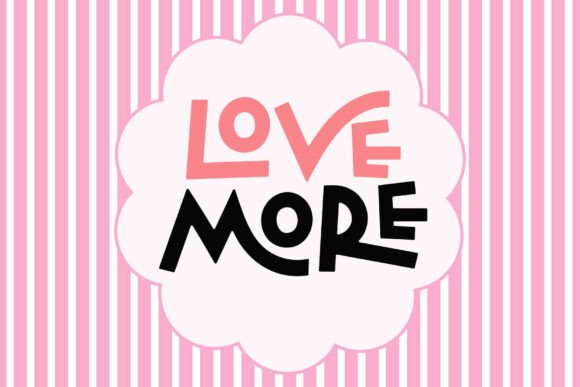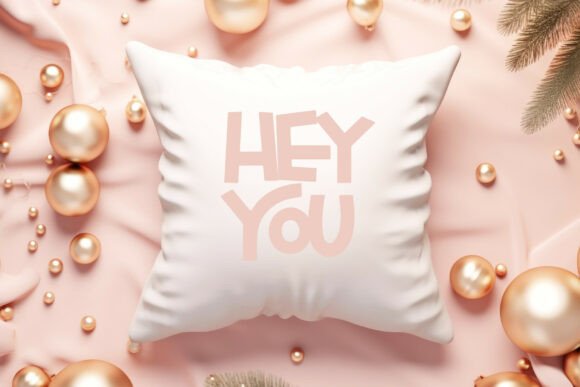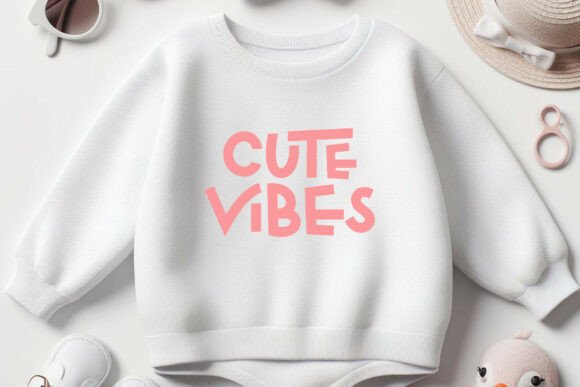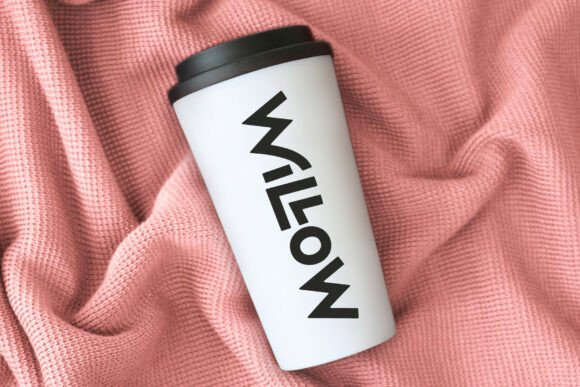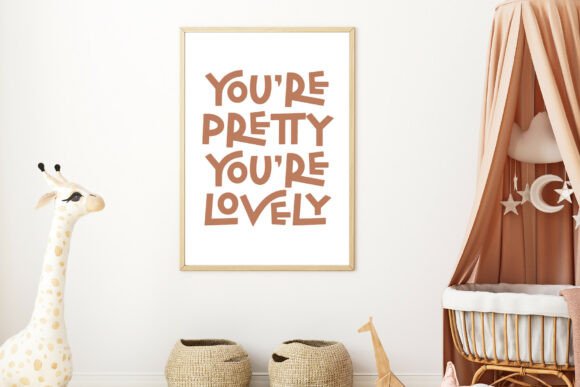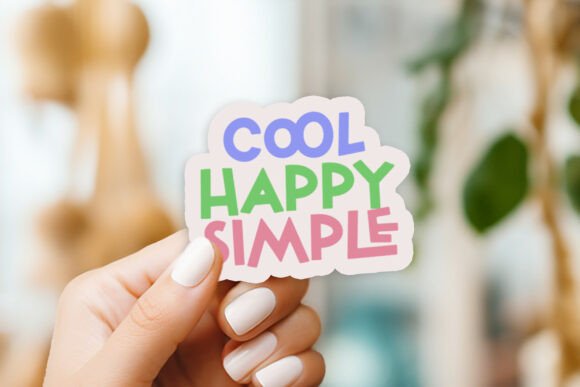
The Ultimate Emotion Flower Font Review: A Playful and Cute Addition to Your Design Toolbox
Have you ever been in the middle of a design project, and suddenly, you just can’t seem to find the right font? I recall a particularly frustrating experience while working on a t-shirt design for a client who wanted something fun, playful, and eye-catching. After scouring through countless font libraries, I stumbled upon the Emotion Flower font, and it instantly brought my design to life! In this article, we’ll dive into the world of Emotion Flower, exploring its features, uses, and everything in between.
First Impressions: What I Love About Emotion Flower
The Emotion Flower font is a charming all-caps display font that exudes a bouncy, playful, and irresistibly cute vibe. Here are some of the things that I love about this font:
- ✨ Stylish Ligatures: Emotion Flower comes packed with tons of stylish ligatures that add an extra flair to your text, making it perfect for display graphics, t-shirt designs, and more.
- ✅ PUA-Encoded: This font is PUA-encoded, ensuring effortless access to all glyphs, swashes, and alternate characters, making it easy to customize your creations.
- 🎉 Quirky and Delightful Style: Emotion Flower’s unique style makes every design feel fun, expressive, and full of character, perfect for crafters, designers, and creative hobbyists.
Honest Review: A Few Quirks to Consider
While Emotion Flower is an amazing font, there are a few things to keep in mind:
- 🤔 Ligature Support: To fully enjoy the font’s potential, your design software needs to support ligatures. Don’t worry; most modern design tools do, but it’s essential to check.
- ⚠️ All-Caps Design: As an all-caps font, Emotion Flower might not be the best choice for body text or long paragraphs. It’s perfect for display purposes, but you might want to pair it with a complementary font for longer texts.
The Backstory Behind Emotion Flower
Emotion Flower was designed with one goal in mind: to bring joy and personality to your projects. The designer, inspired by the beauty of flowers and the world of emotions, crafted this font to be a versatile and fun tool for creatives. Whether you’re a professional designer or a hobbyist, Emotion Flower aims to make your designs stand out.
| Q: What is Emotion Flower font? | A: Emotion Flower is a charming all-caps display font designed to bring joy and personality to your projects. |
| Q: Does Emotion Flower support OpenType features? | A: Yes, Emotion Flower supports OpenType features, including ligatures and stylistic alternates. |
In conclusion, Emotion Flower is a delightful addition to any design toolbox. Its playful, bouncy vibe and extensive features make it perfect for a wide range of creative projects. With its PUA encoding and support for OpenType features, Emotion Flower is sure to bring your designs to life!